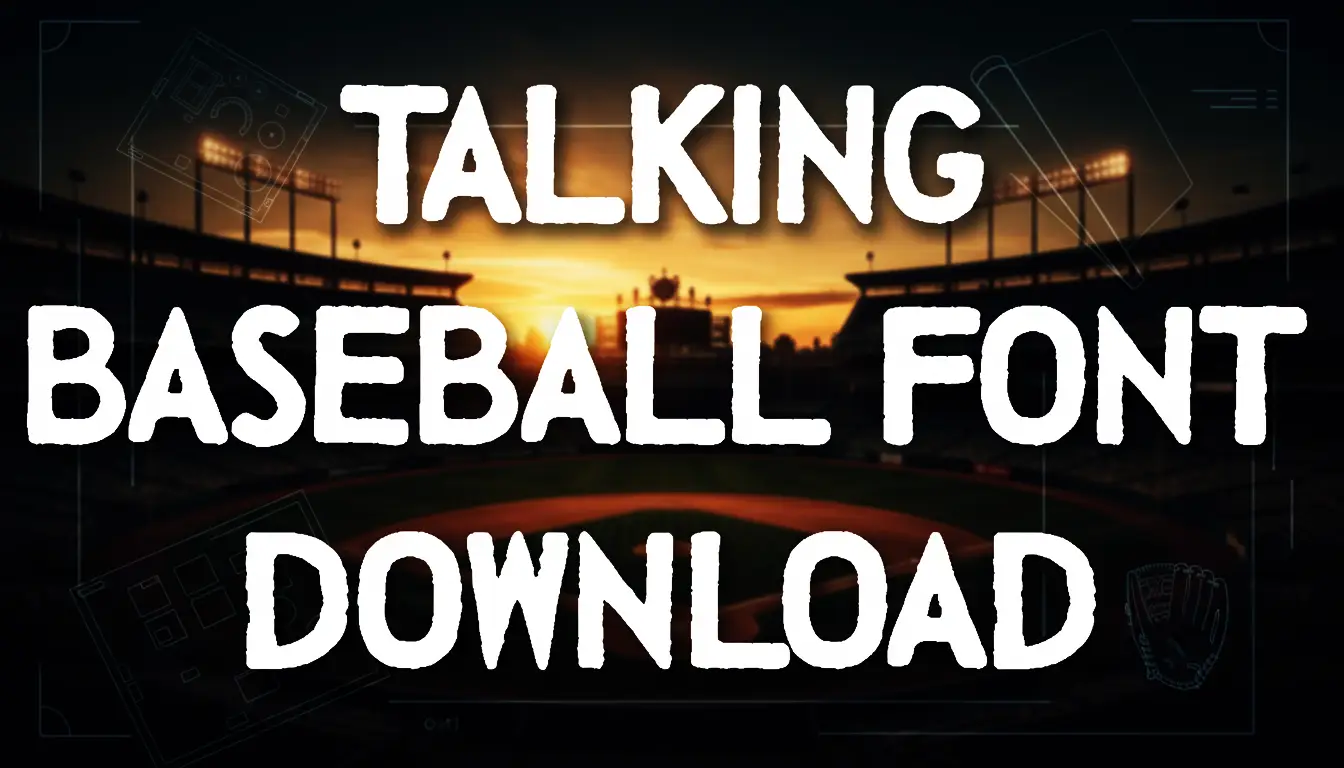
Talking Baseball Font
Talking Baseball is a stylized, uppercase display font created by the design studio Chequered Ink. Categorized under “Fancy > Eroded” typefaces, it features a modern, textured look with eroded lines rather than the traditional smooth cursive curves associated with classic retro sports jerseys.
Talking Baseball
Talking Baseball is a fancy font made by NAL. It's a decorative display font with plenty of personality, made to grab attention. It's a free download, and you can try it with your own text in the preview above first.
With complete upper and lowercase letters and all ten digits, Talking Baseball is ready for real wording, not just a single headline. Everyday marks like &, !, ? and @ are there too. There are no accented letters like é or ñ, so it's best kept to English text.
Think of Talking Baseball for posters, logos and eye-catching headlines. Use it for one standout word or headline and let simpler fonts handle the rest.
No. Talking Baseball has no accented letters such as é, ñ or ü, so it's best for English text.